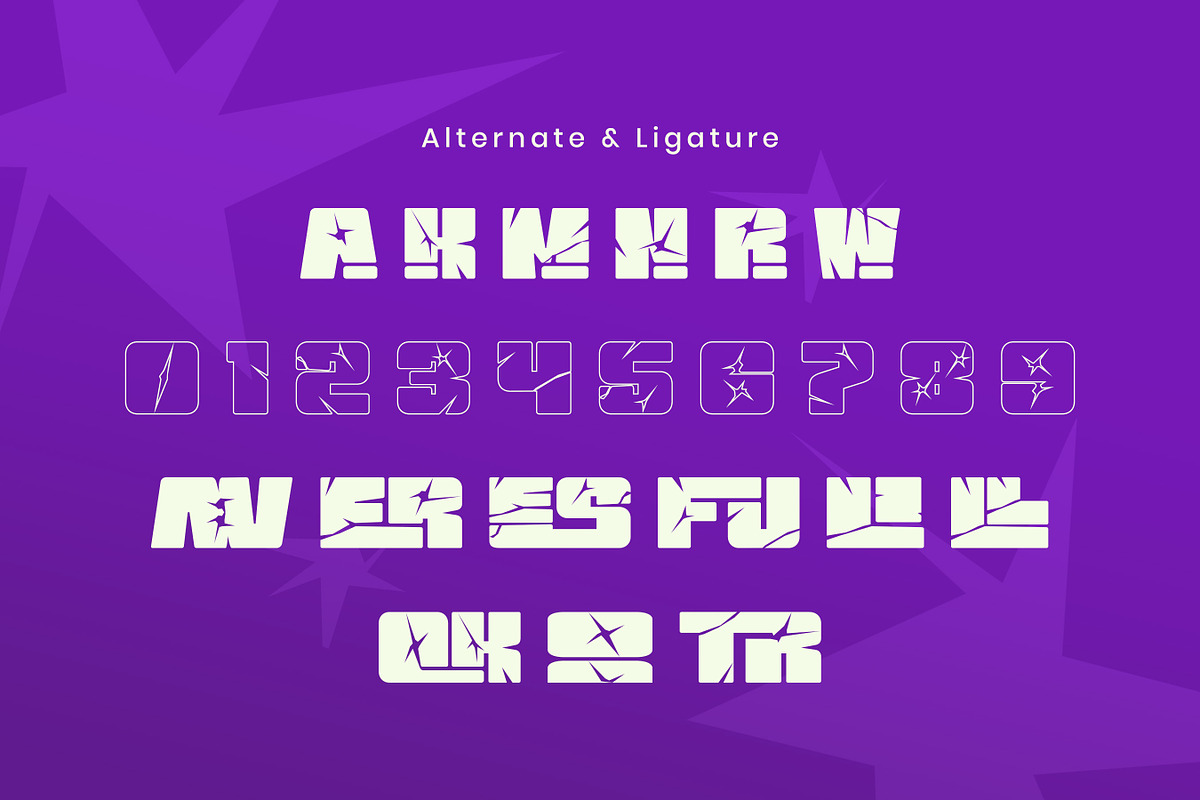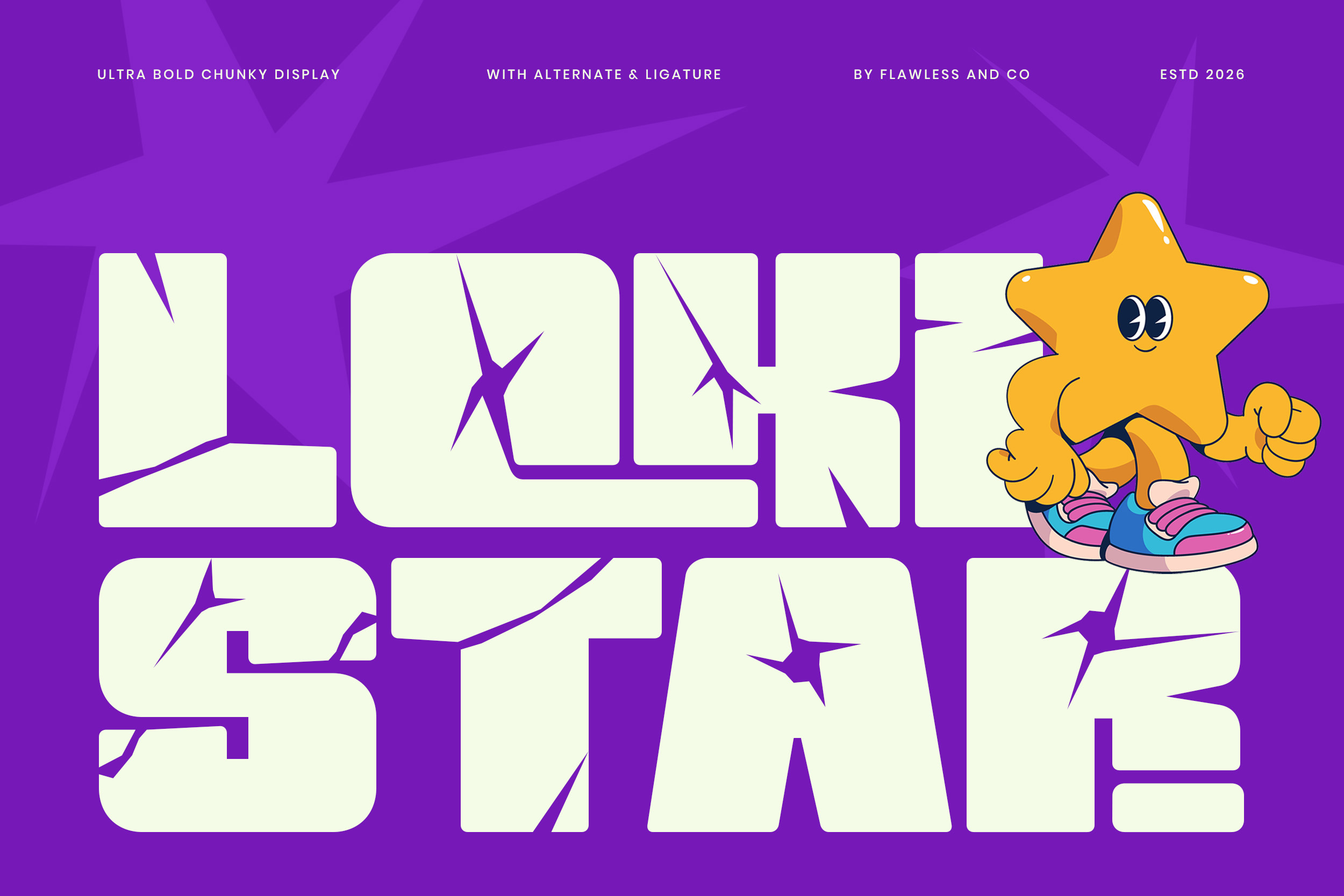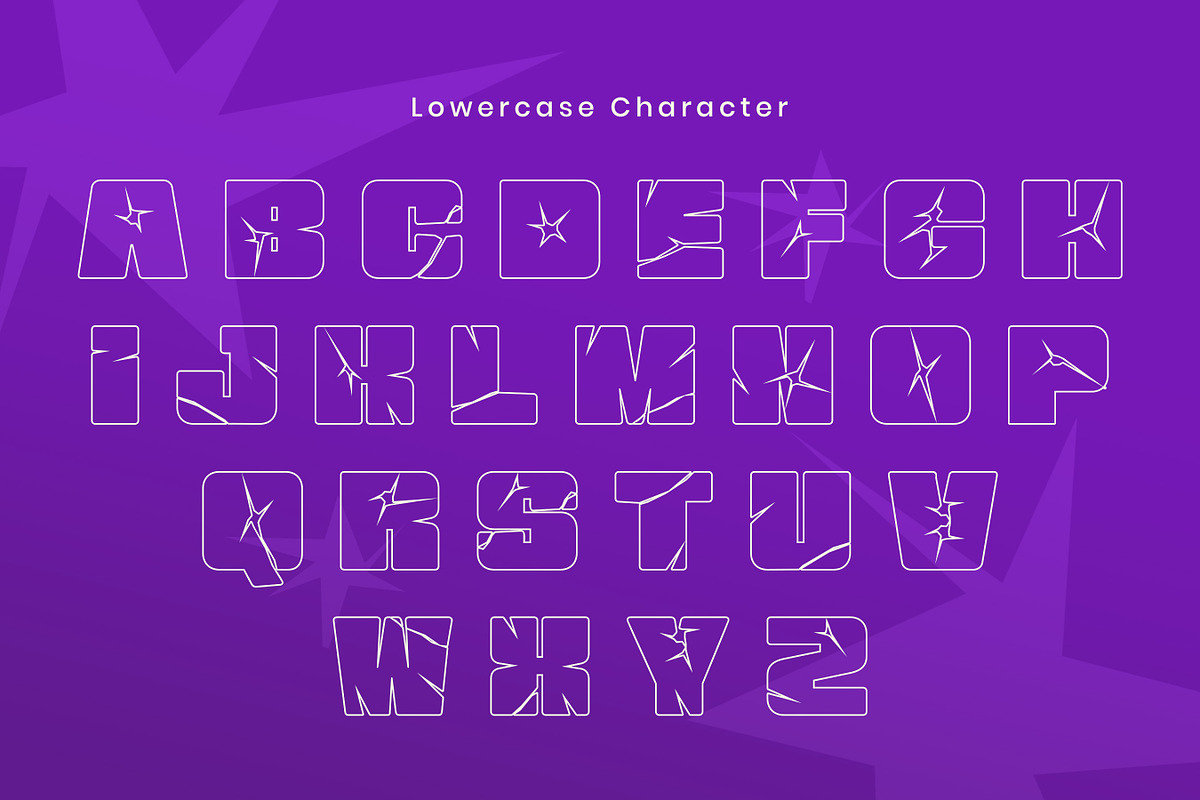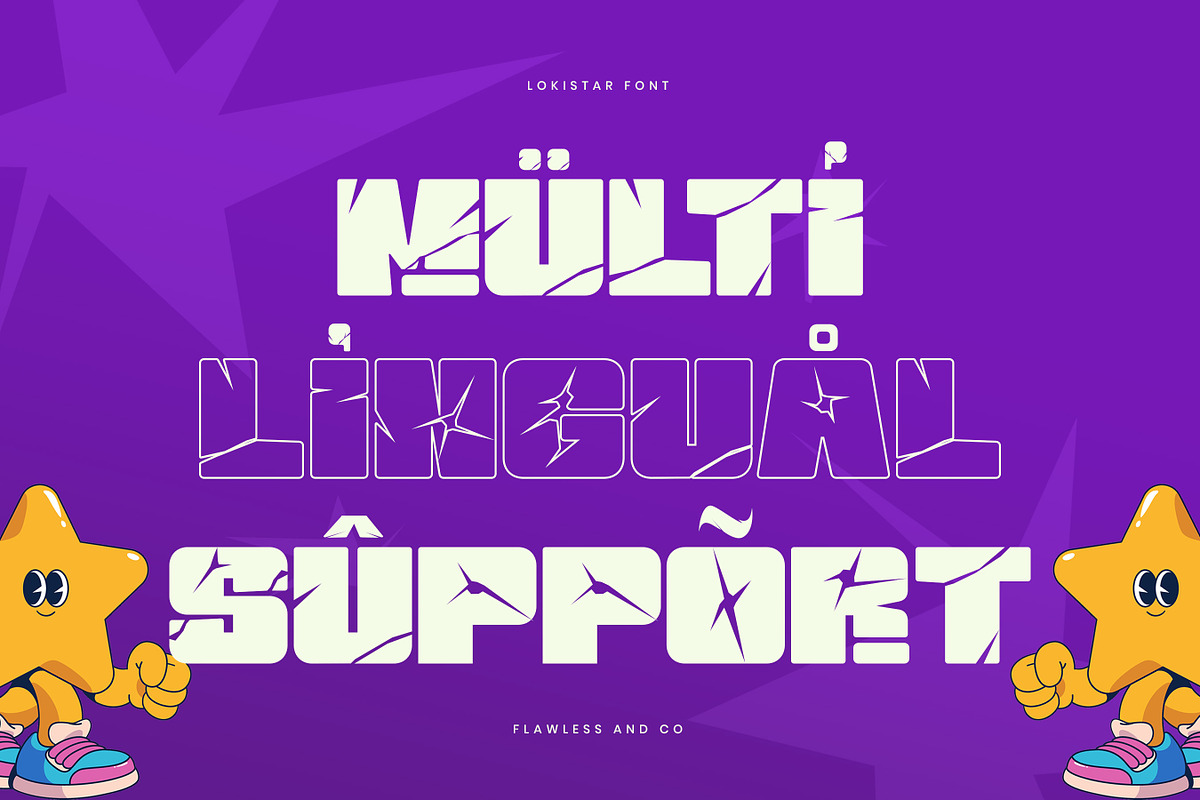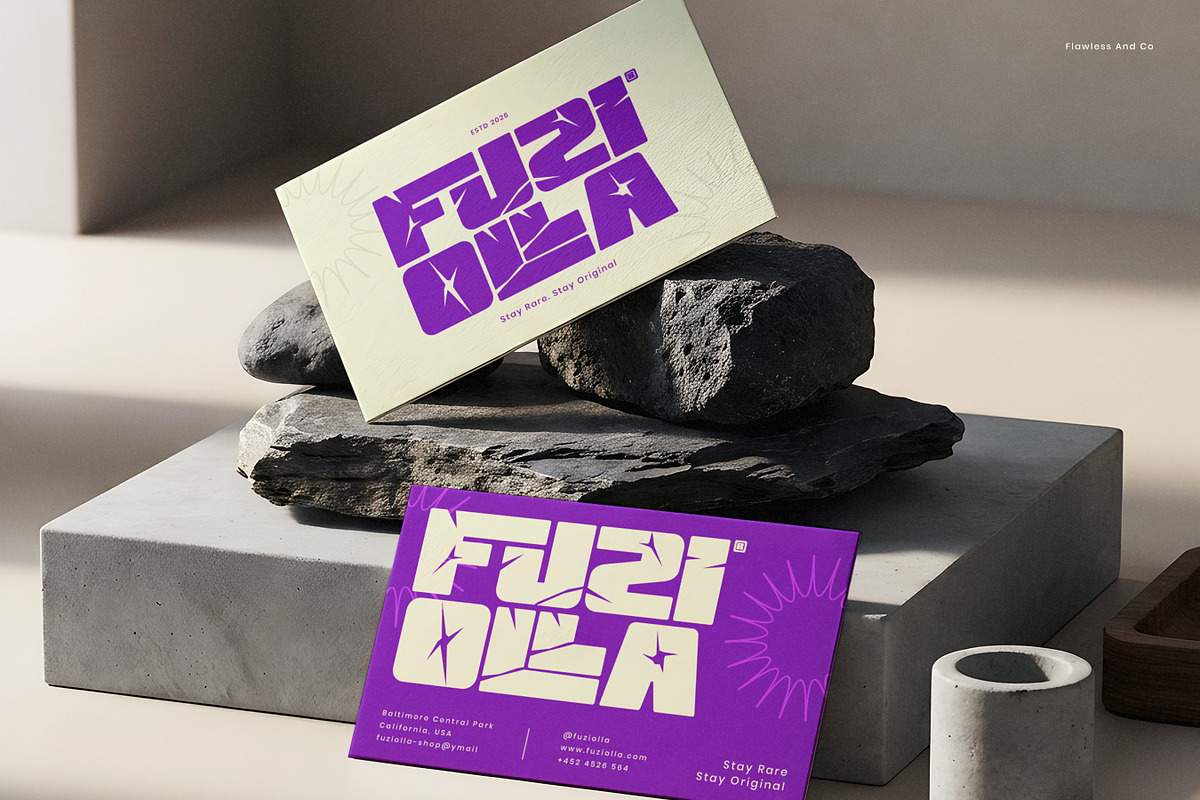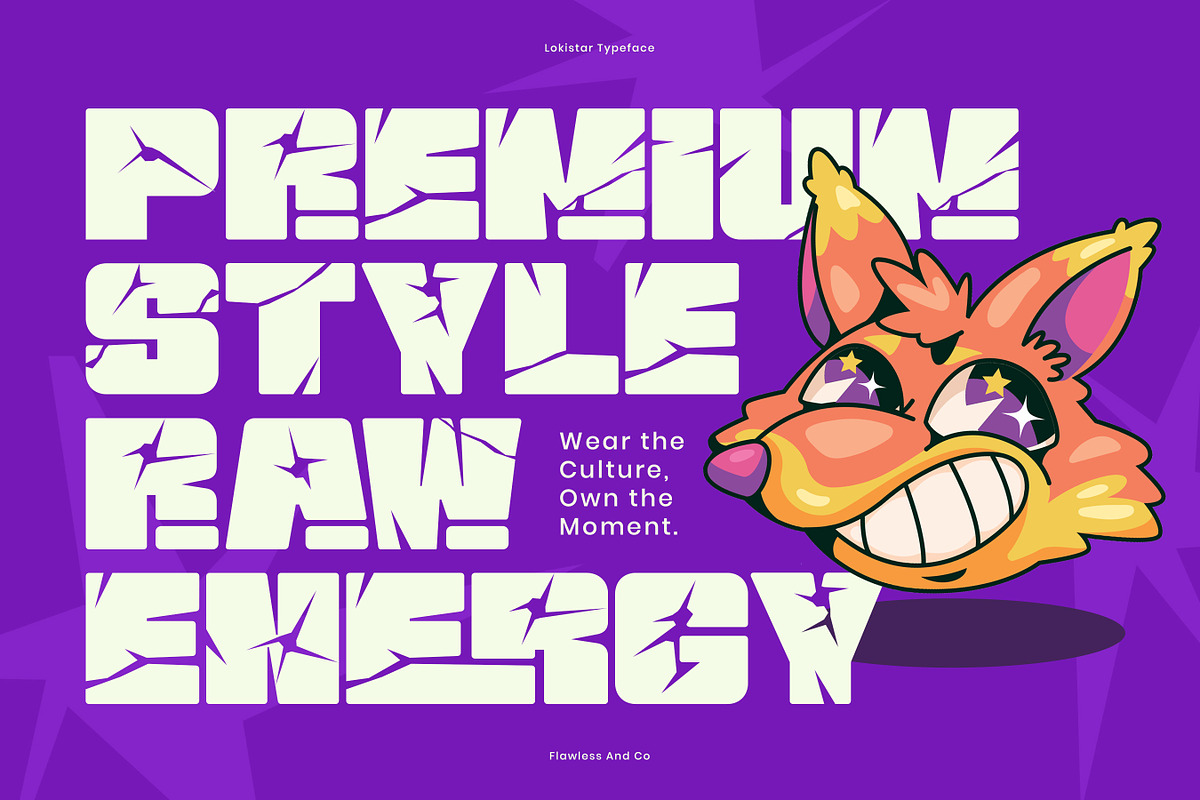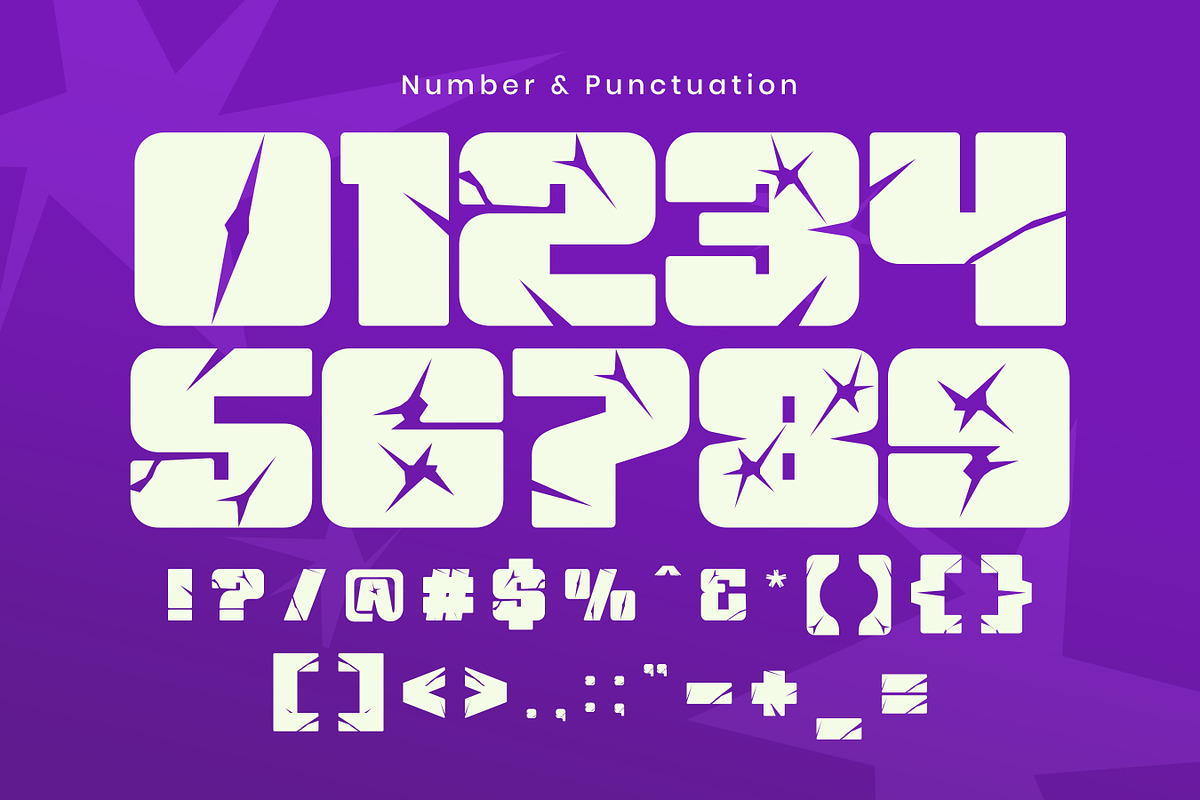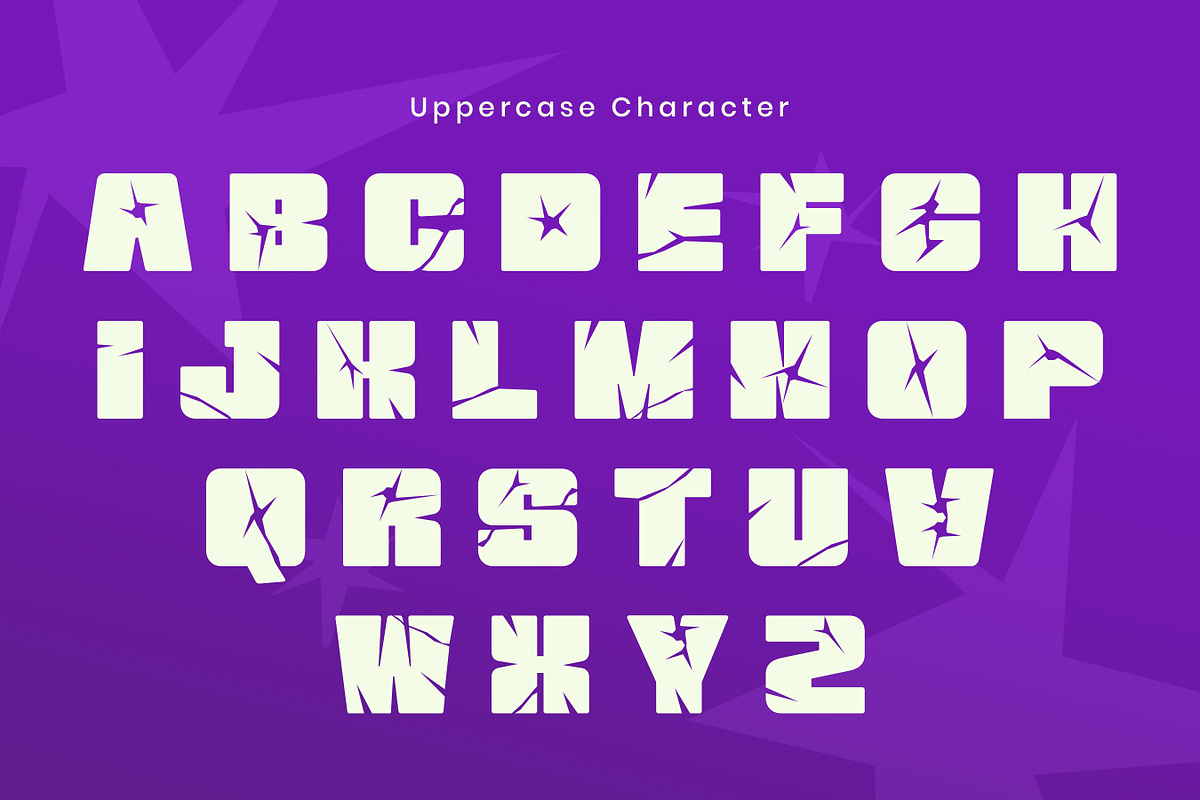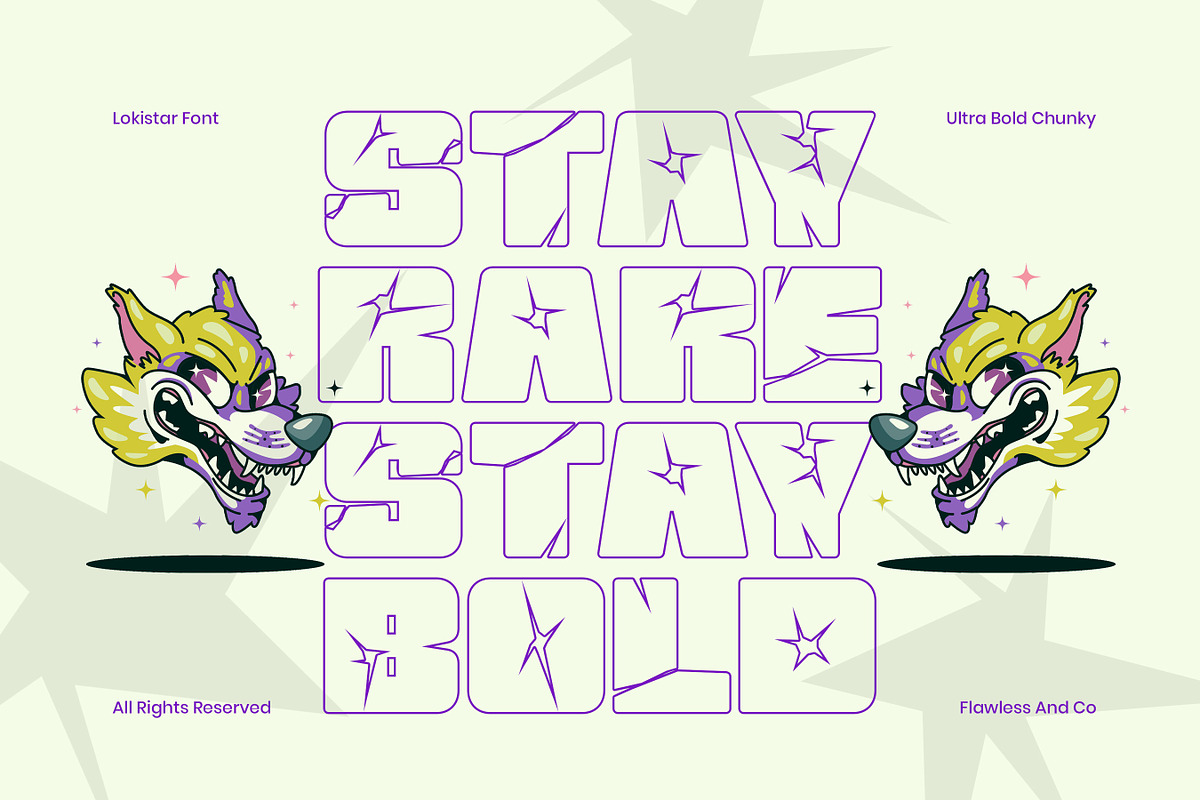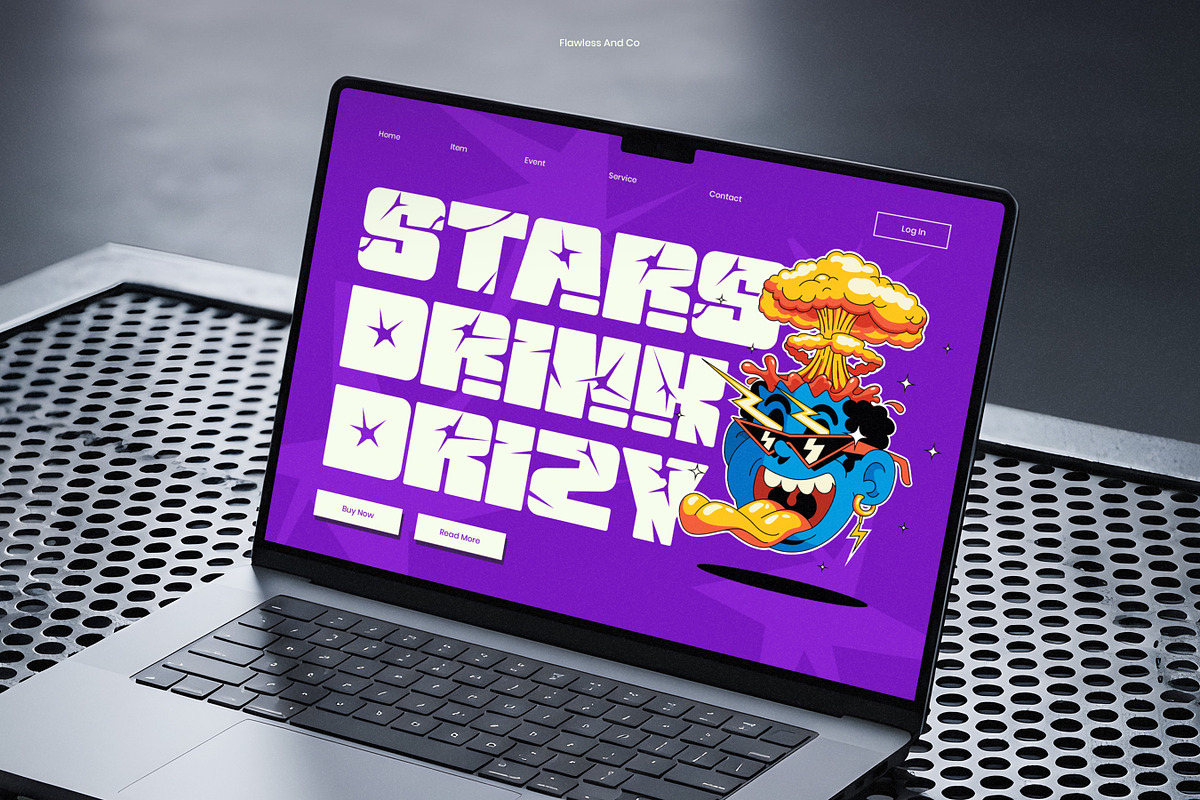
Lokistar - Bold Chunky Display Font
Lokistar - Ultra Bold Chunky Display Font
Lokistar is an ultra bold chunky display font designed to make a powerful and playful statement. Featuring thick rounded letterforms, strong geometric shapes, and distinctive star-inspired cutouts, Lokistar brings a fun and energetic personality to every design. Its oversized appearance and bold structure make it highly effective for eye-catching headlines, posters, logos, and attention-grabbing display typography. With its combination of chunky forms and playful details, Lokistar is perfect for designers looking to create bold visuals with a youthful, expressive, and contemporary feel.
Alternates & Ligatures
Who Should Use Lokistar?
Lokistar is perfect for designers and creatives who love bold, playful, and expressive typography. It’s ideal for projects that need a strong visual presence with a fun and energetic personality, especially branding, apparel, posters, and creative promotional designs.
Suitable For:
Bold and playful branding
Logo and brand identity
Kids and youth-oriented designs
Posters and promotional materials
Sticker and merchandise designs
Gaming and entertainment graphics
Social media visuals
Event and festival designs
Packaging and product labels
Headlines and impactful typography
Fun quotes and creative artwork